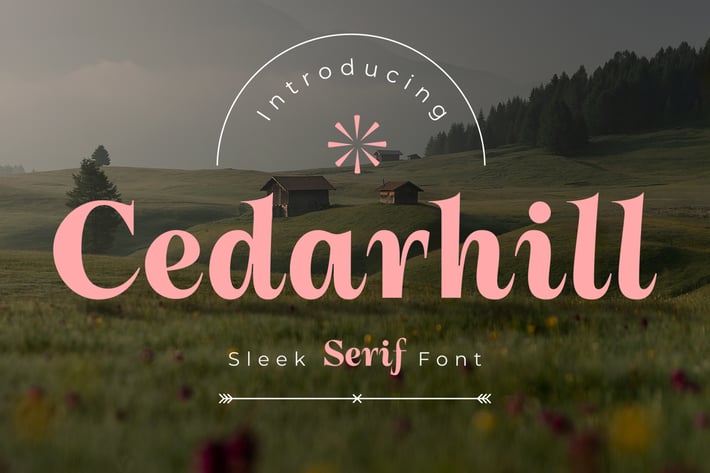
Cedarhill - Sleek Serif Font
Cedarhill-Sleek Serif Font is a modern and elegant typeface that combines sharp serifs with beautifully crafted italic tail serifs. This font exudes sophistication and versatility, making it perfect for a wide range of design projects, from branding and logos to editorial layouts and web design.
With its clean lines and distinct serifs, Cedarhill-Sleek Serif Font adds a touch of refinement to any creative endeavor, making your text stand out with style and grace.